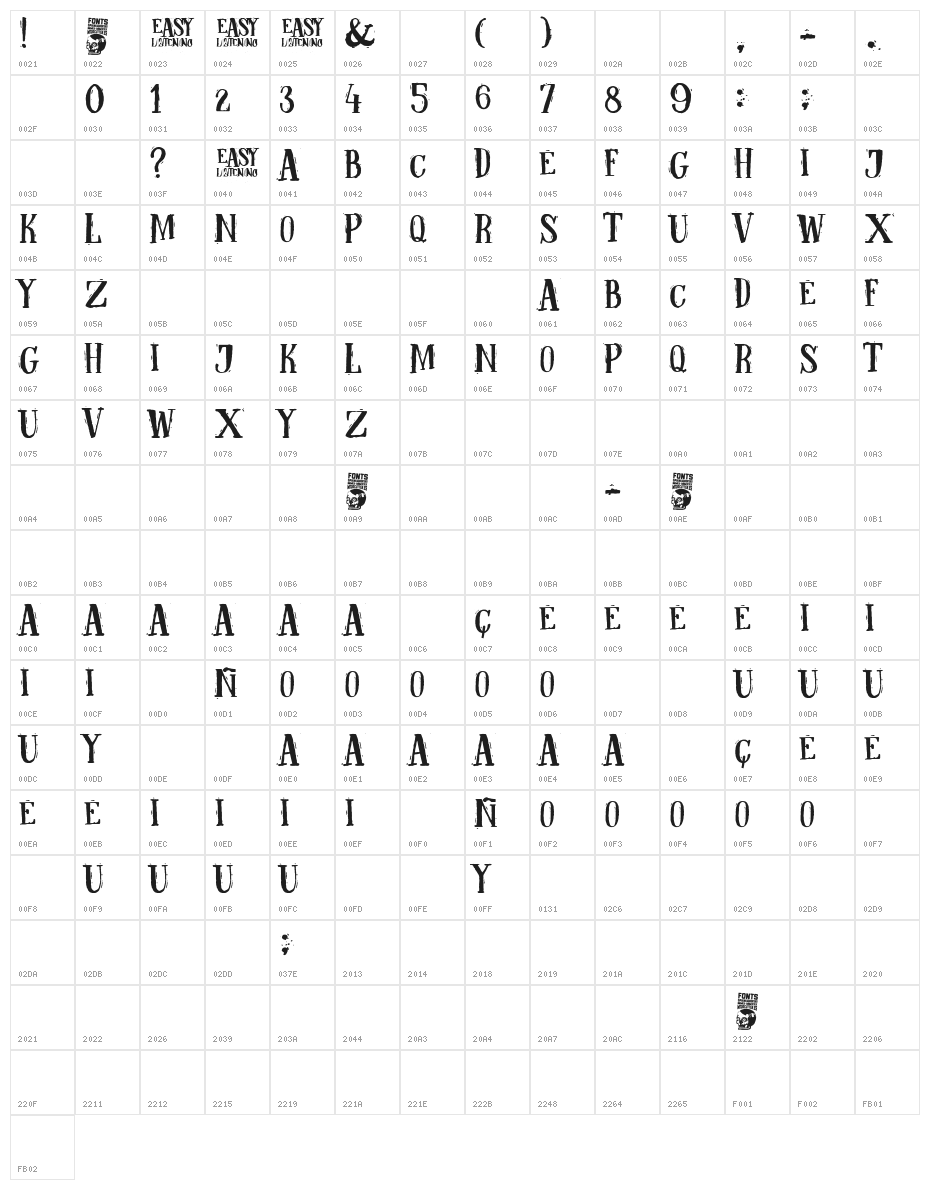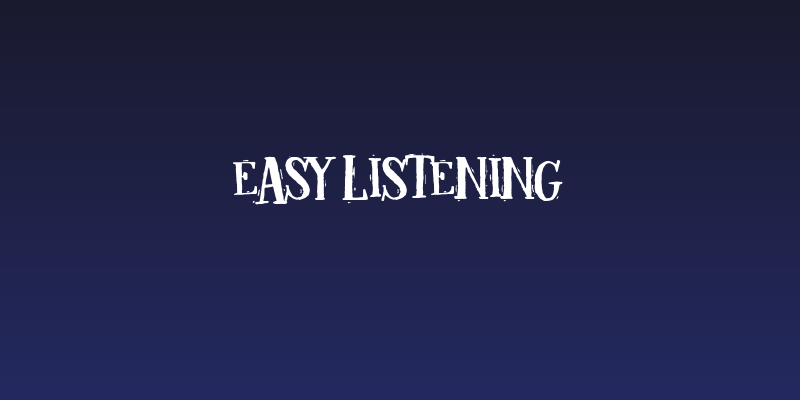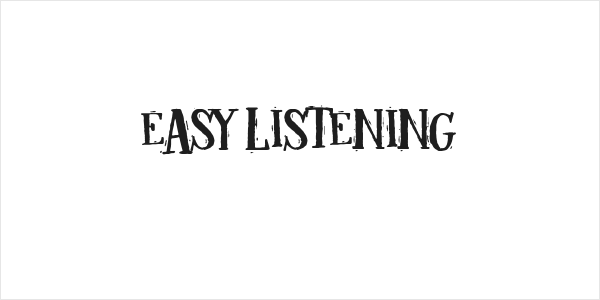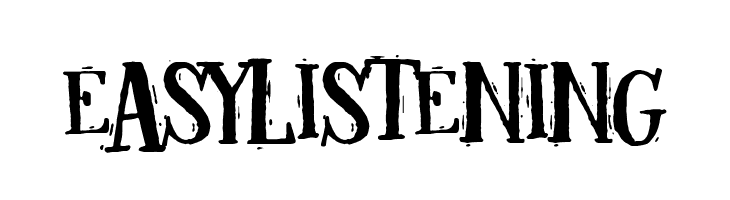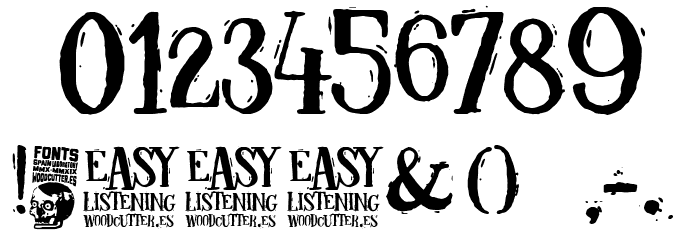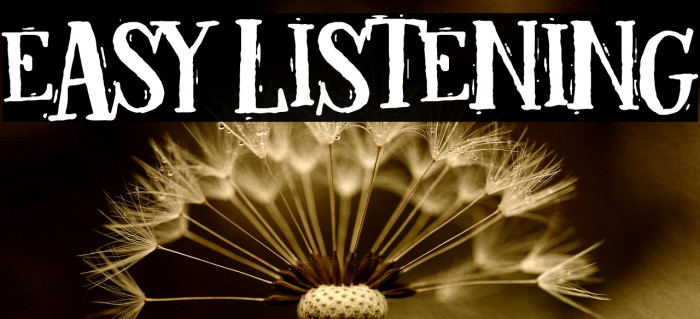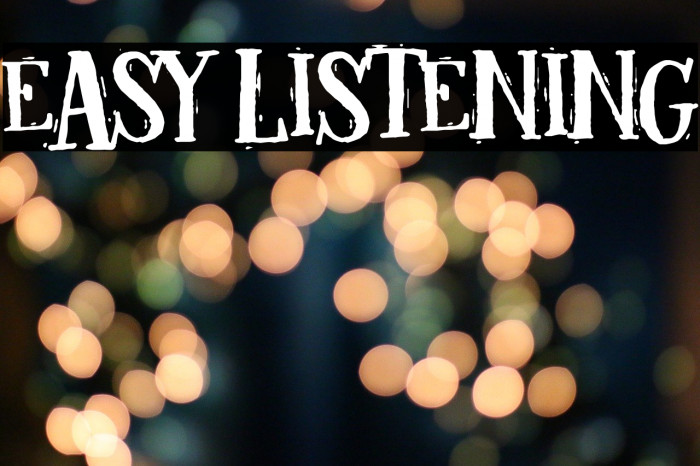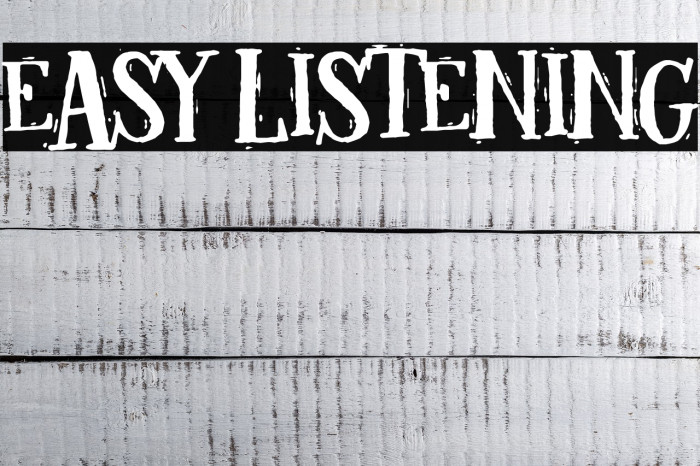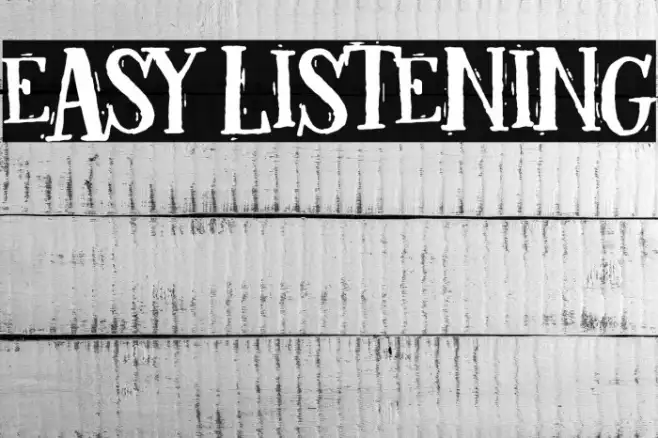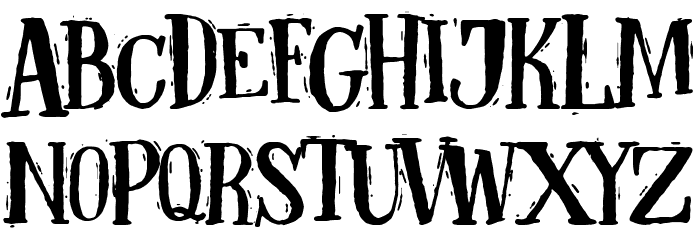
Easy listening Font
Easy listening Description
This font features a distressed, hand-drawn style that gives it a rustic and vintage appearance. The letters are bold and slightly irregular, with rough edges and a textured look that suggests a worn or weathered feel. The uppercase and lowercase letters maintain a consistent style, with a playful yet rugged character. Numbers and special characters follow the same aesthetic, making the font versatile for various creative projects. Its unique style is reminiscent of woodcut or printmaking techniques, adding an artisanal touch to any design.
| Proposed Projects | Ideal for posters, album covers, branding for artisanal products, and any design requiring a vintage or handcrafted look. |